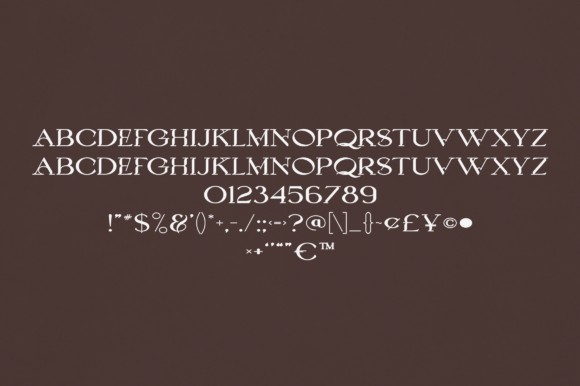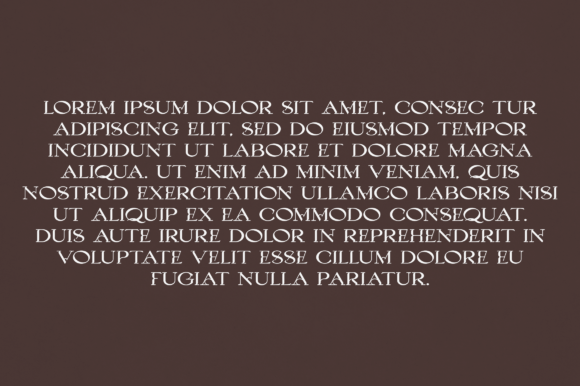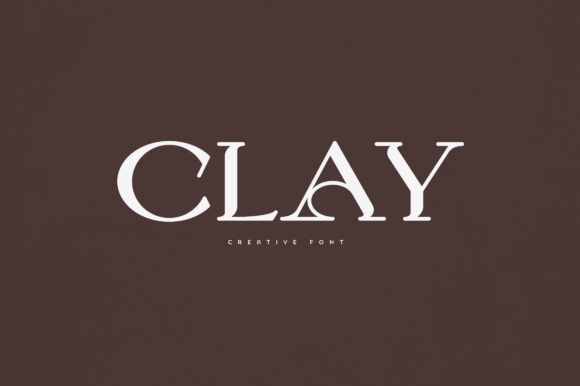
Introducing Clay Font: Elevate Your Typography with Elegance and Versatility
Are you tired of using the same old fonts for your design projects? Look no further than Clay Font, a stunning and versatile typeface that will take your typography to the next level. With its elegant and refined aesthetic, Clay Font is perfect for designers and crafters looking to add a touch of sophistication to their work.
A Font for Every Project
Clay Font is an incredibly versatile typeface that can be used in a wide range of design projects. Whether you’re working on a logo, branding materials, headlines, or plain text, Clay Font is sure to make your typography truly unique. Its elegant and refined aesthetic makes it perfect for:
- Branding projects: Create a lasting impression with Clay Font’s sophisticated and refined aesthetic.
- Home-ware designs: Add a touch of elegance to your home-ware designs with Clay Font’s unique and stylish characters.
- Product packaging: Stand out on store shelves with Clay Font’s bold and eye-catching typography.
- Magazine headers: Create stunning magazine headers that grab attention and draw readers in.
- Text overlays: Use Clay Font as a stylish text overlay to add depth and interest to any background image.
What Makes Clay Font So Special?
So, what sets Clay Font apart from other typefaces? Here are just a few features that make it a standout:
- Elegant and refined aesthetic: Clay Font’s elegant and refined aesthetic makes it perfect for designers and crafters looking to add a touch of sophistication to their work.
- Versatile: With its wide range of applications, Clay Font is a versatile typeface that can be used in a variety of design projects.
- Unique: Clay Font’s unique and stylish characters will make your typography truly stand out from the crowd.
- Easy to use: With its clean and simple design, Clay Font is easy to use and pairs perfectly with a wide range of other fonts.
Tips for Using Clay Font
Here are a few tips for getting the most out of Clay Font:
- Experiment with different sizes: Clay Font looks great in a variety of sizes, from large headlines to smaller body text.
- Pair with other fonts: Clay Font pairs perfectly with a wide range of other fonts, so don’t be afraid to experiment and find the perfect combination for your project.
- Use it sparingly: While Clay Font is a beautiful typeface, it can be overwhelming if used too much. Use it sparingly to create a lasting impression.
In conclusion, Clay Font is an elegant and versatile typeface that is perfect for designers and crafters looking to elevate their typography. With its wide range of applications and unique aesthetic, Clay Font is sure to make your design projects stand out from the crowd. So why wait? Download Clay Font today and take your typography to the next level!
Key Features of Clay Font
| Elegant Aesthetic | Clay Font’s elegant and refined aesthetic makes it perfect for designers and crafters looking to add a touch of sophistication to their work. |
| Versatile | Clay Font can be used in a wide range of design projects, from branding and logos to product packaging and magazine headers. |
| Unique Characters | Clay Font’s unique and stylish characters will make your typography truly stand out from the crowd. |
| Easy to Use | Clay Font is easy to use and pairs perfectly with a wide range of other fonts. |